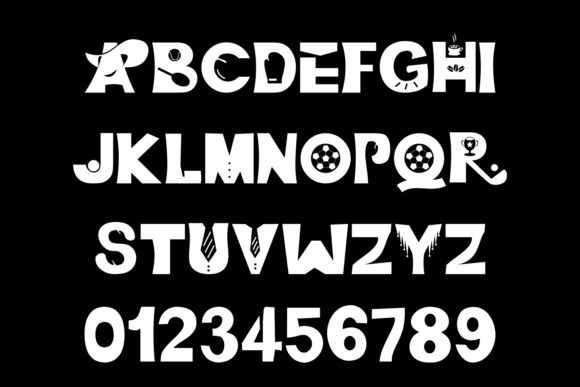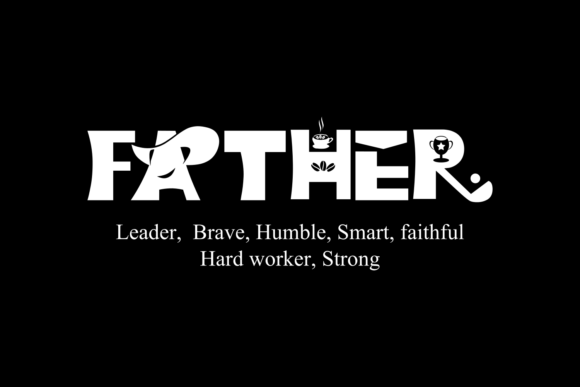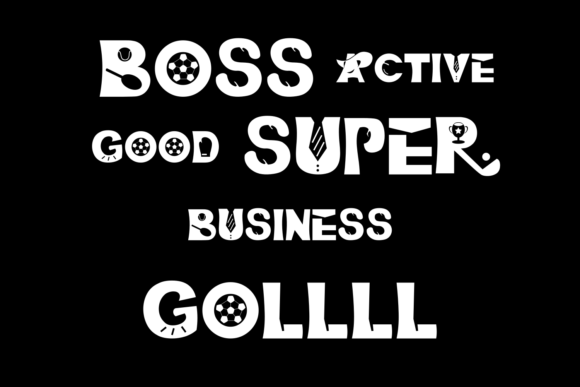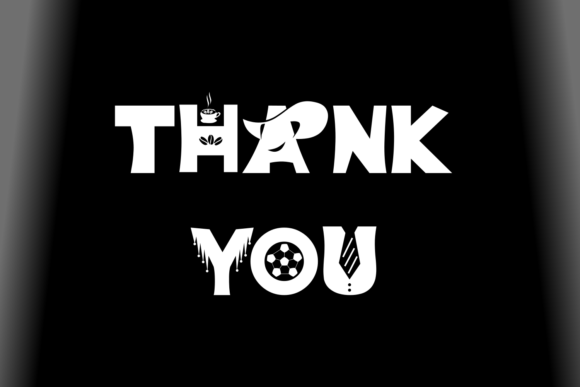
Introducing Father Font: The Ultimate Display Font for Bold Designs
Are you looking for a font that can add a touch of boldness and thickness to your designs? Look no further than Father Font, a cool and eye-catching display font that’s perfect for posters, flyers, and prints. In this article, we’ll explore the features and benefits of Father Font, and show you how to make the most of its endless possibilities.
What is Father Font?
Father Font is a display font designed to make a statement. Its bold and thick lettering makes it perfect for headlines, titles, and any other design element that needs to grab attention. The font is clean, modern, and highly legible, making it easy to read even at large sizes.
Key Features of Father Font
- Bold and Thick Lettering: Father Font is characterized by its bold and thick lettering, making it perfect for designs that need to stand out.
- Clean and Modern Design: The font has a clean and modern design that’s highly legible, even at large sizes.
- Highly Versatile: Father Font can be used for a wide range of designs, from posters and flyers to prints and digital media.
- Easily Customizable: The font is easily customizable, allowing you to adjust the size, color, and style to fit your design needs.
Benefits of Using Father Font
So why choose Father Font for your designs? Here are just a few benefits of using this amazing display font:
- Adds Visual Impact: Father Font’s bold and thick lettering adds visual impact to your designs, making them more likely to grab attention.
- Enhances Readability: The font’s clean and modern design makes it easy to read, even at large sizes.
- Increases Versatility: Father Font can be used for a wide range of designs, making it a great addition to your font library.
- Saves Time: With Father Font, you can create stunning designs in no time, thanks to its ease of use and customization options.
Endless Possibilities with Father Font
So what can you create with Father Font? The possibilities are endless! Here are just a few ideas to get you started:
- Posters and Flyers: Use Father Font to create eye-catching posters and flyers that grab attention.
- Print Designs: The font is perfect for print designs, including brochures, business cards, and more.
- Digital Media: Father Font can be used for digital media, including social media graphics, website headers, and more.
- Logos and Branding: The font’s bold and thick lettering makes it perfect for logos and branding designs.
Tips for Using Father Font
Here are a few tips for getting the most out of Father Font:
- Experiment with Sizes: Don’t be afraid to experiment with different sizes to find the one that works best for your design.
- Play with Colors: Try out different colors to find the one that complements your design.
- Combine with Other Fonts: Father Font can be paired with other fonts to create a unique and interesting design.
- Use for Headlines and Titles: The font is perfect for headlines and titles, making it a great choice for designs that need to grab attention.
Father Font is a cool, bold, and thick lettered display font that’s perfect for designers and crafters looking to add a touch of boldness to their designs. With its clean and modern design, highly legible lettering, and endless possibilities, Father Font is a great addition to any font library. So why wait? Download Father Font today and start creating stunning designs that grab attention!